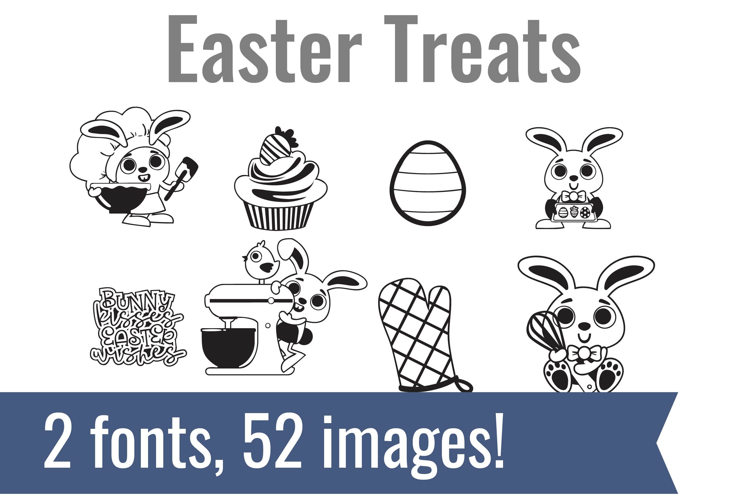
Easter Treats Dingbats
Unlock endless creativity with two perfectly coordinated dingbat fonts! There are two dingbat fonts in this bundle, featuring adorable Easter characters, treats and train.
Tired of spending hours searching for the perfect icons and graphics? Our dingbat fonts put dozens of cohesive, scalable designs at your fingertips. Simply install the font and type a letter to produce a pre-made image. From charming seasonal icons for holiday cards to intricate frames for your invitations, these fonts let you create stunning designs for vinyl cutting, paper crafts, planners, and more.